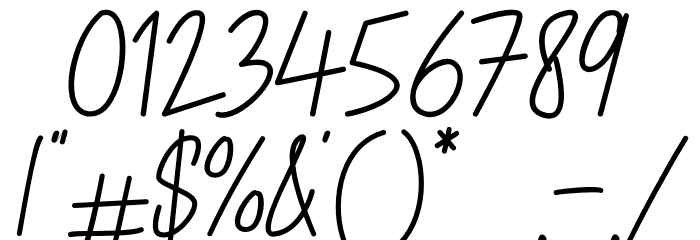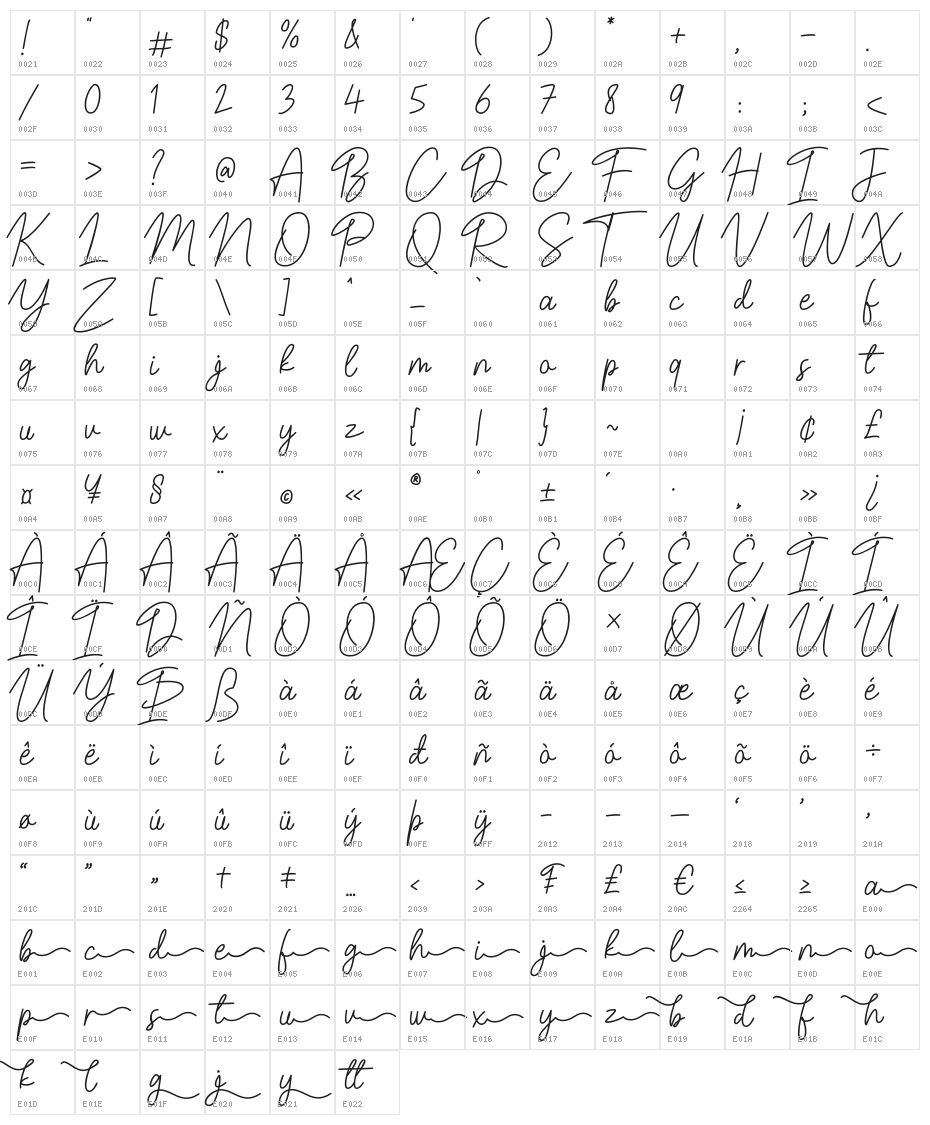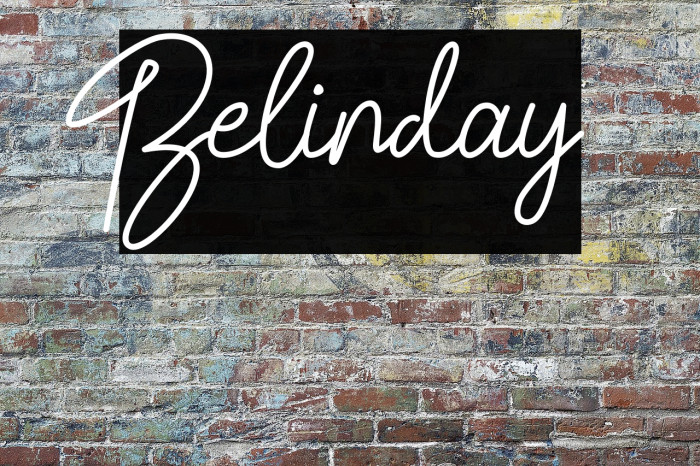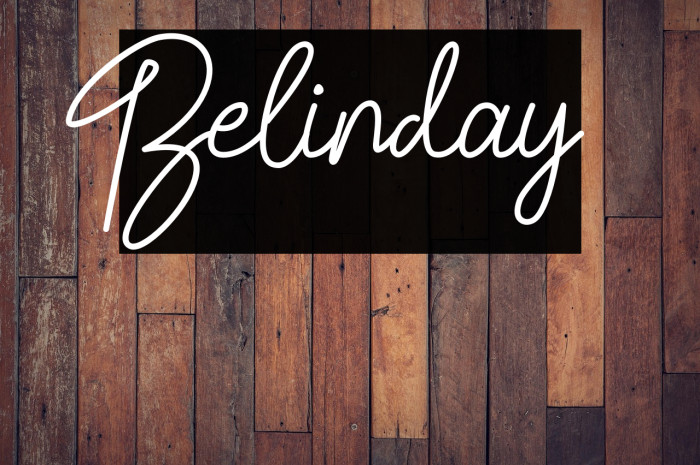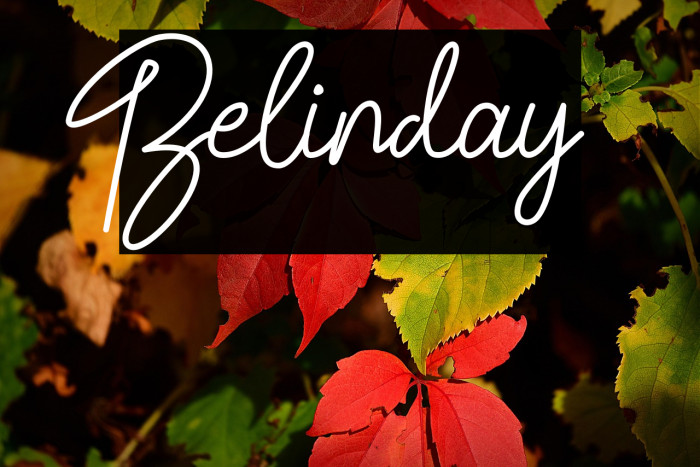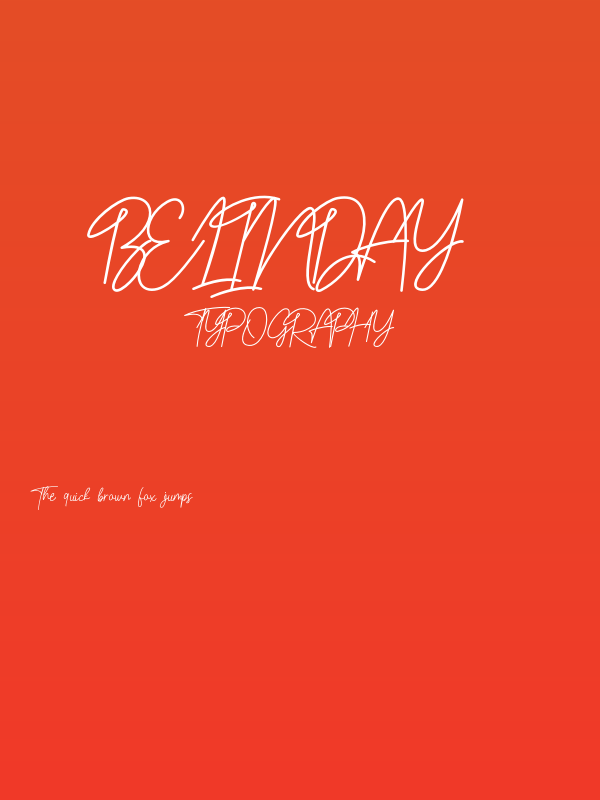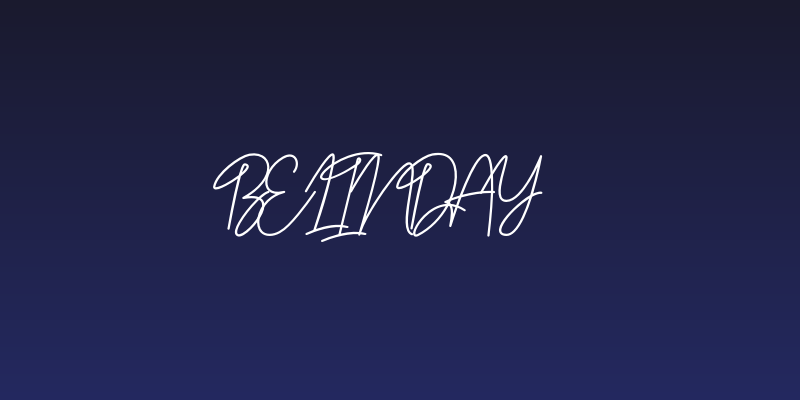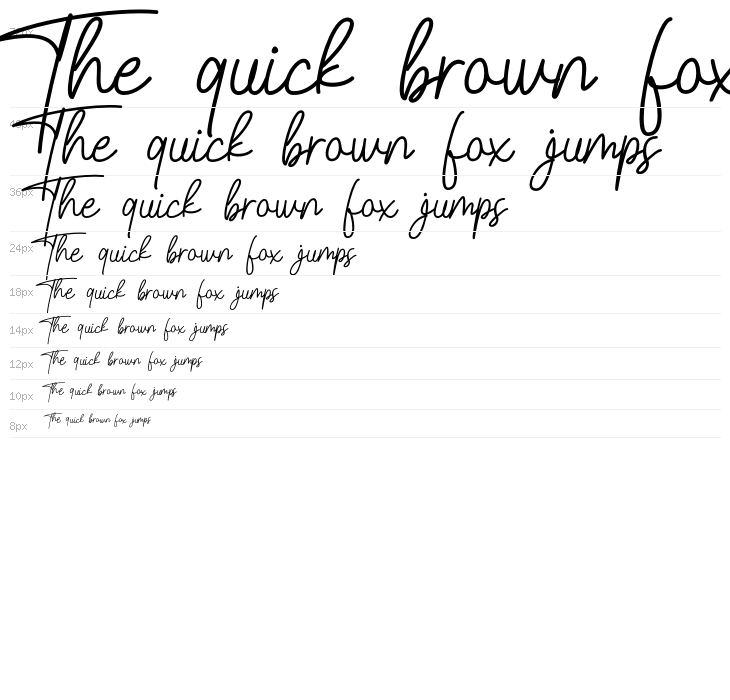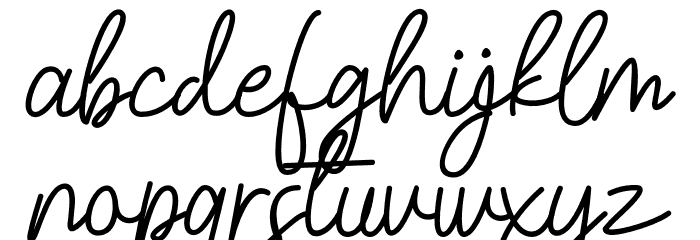
Belinday Font
Belinday Description
This font features a dynamic and flowing script style, characterized by its elegant and fluid strokes. The uppercase letters exhibit a graceful, cursive form with a slight slant, giving them a sense of motion and sophistication. The lowercase letters maintain a consistent style, with smooth curves and loops that enhance readability while retaining an artistic flair. Numbers and special characters are crafted with the same attention to detail, ensuring a cohesive look across all elements. The font's overall appearance is both modern and timeless, making it versatile for various design applications.
| Proposed Projects | Ideal for wedding invitations, branding projects, elegant logos, and stylish packaging designs. |